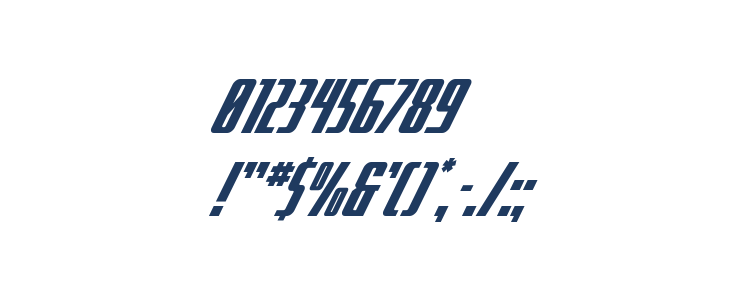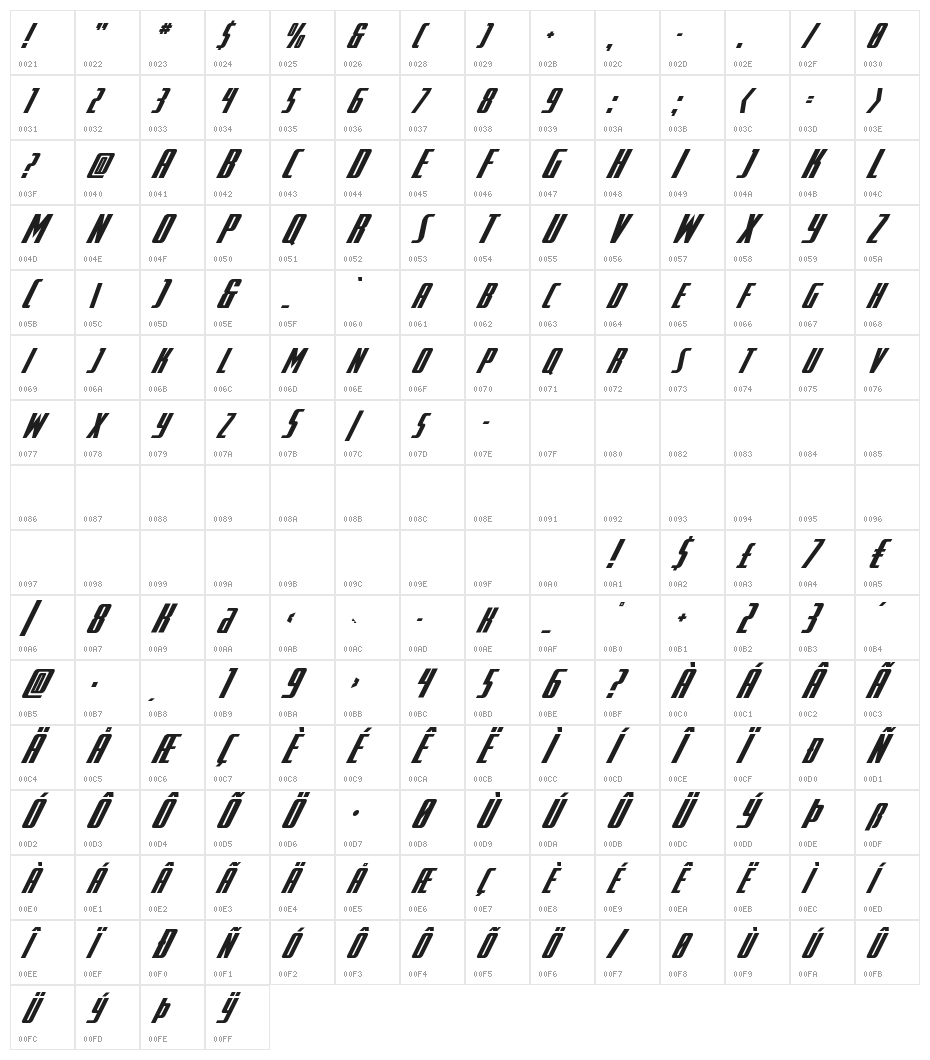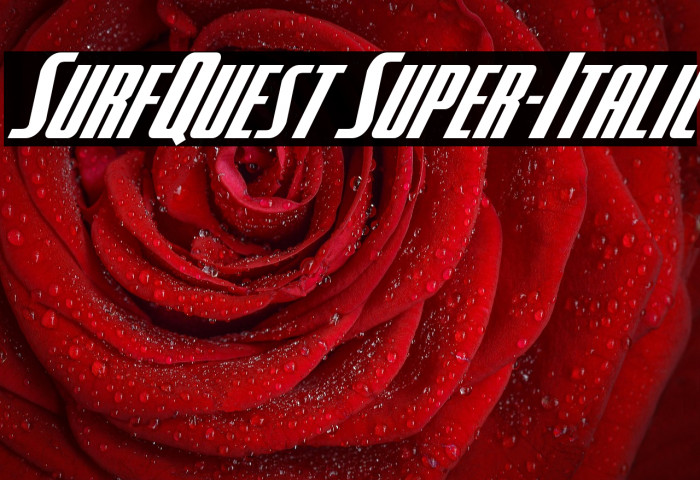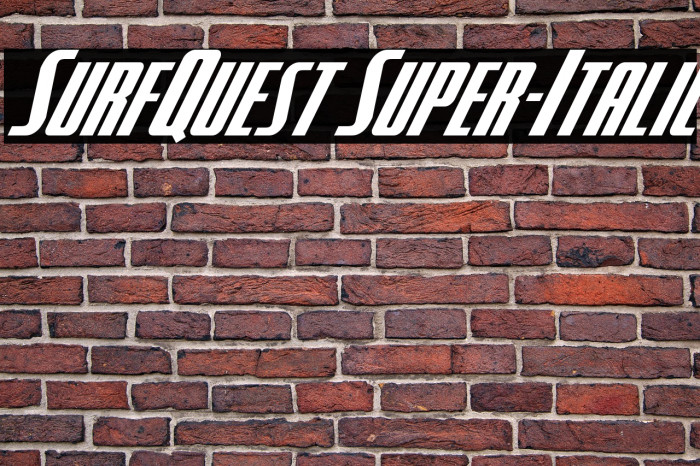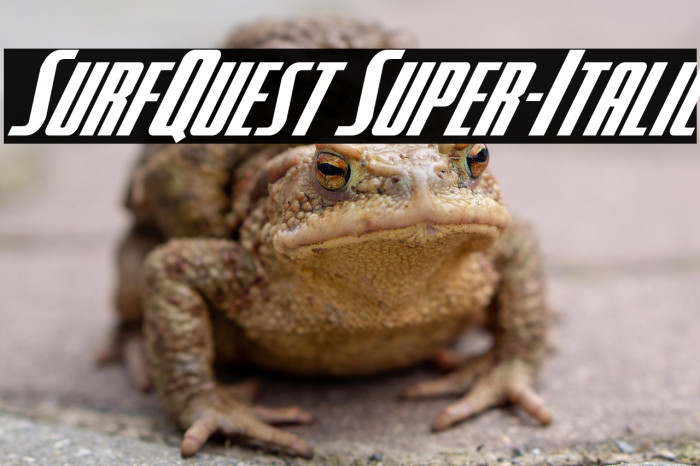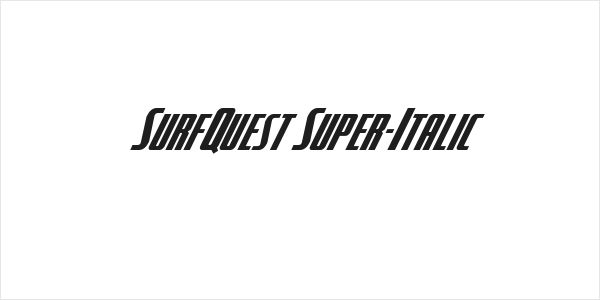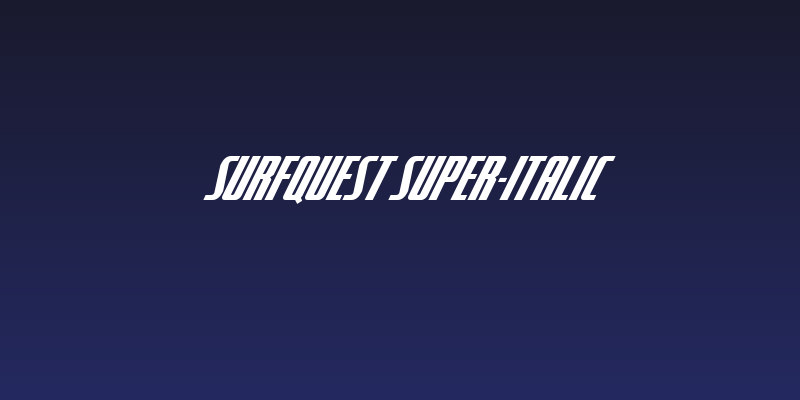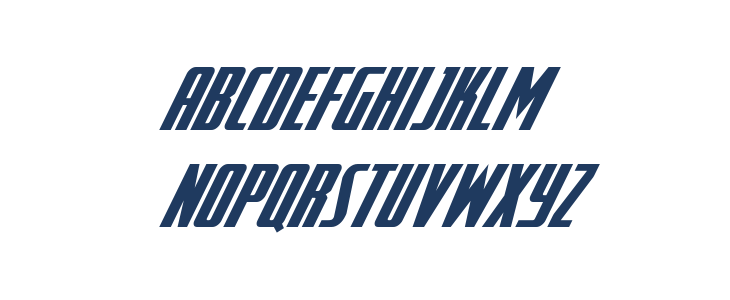
SurfQuest Super-Italic Font
SurfQuest Super-Italic Description
This font features a bold and dynamic style with a strong italic slant, giving it a sense of motion and energy. The characters are elongated and condensed, creating a sleek and modern appearance. The strokes are thick and consistent, providing a high contrast that makes the text stand out. The sharp angles and clean lines contribute to its contemporary and assertive look, making it suitable for attention-grabbing designs.